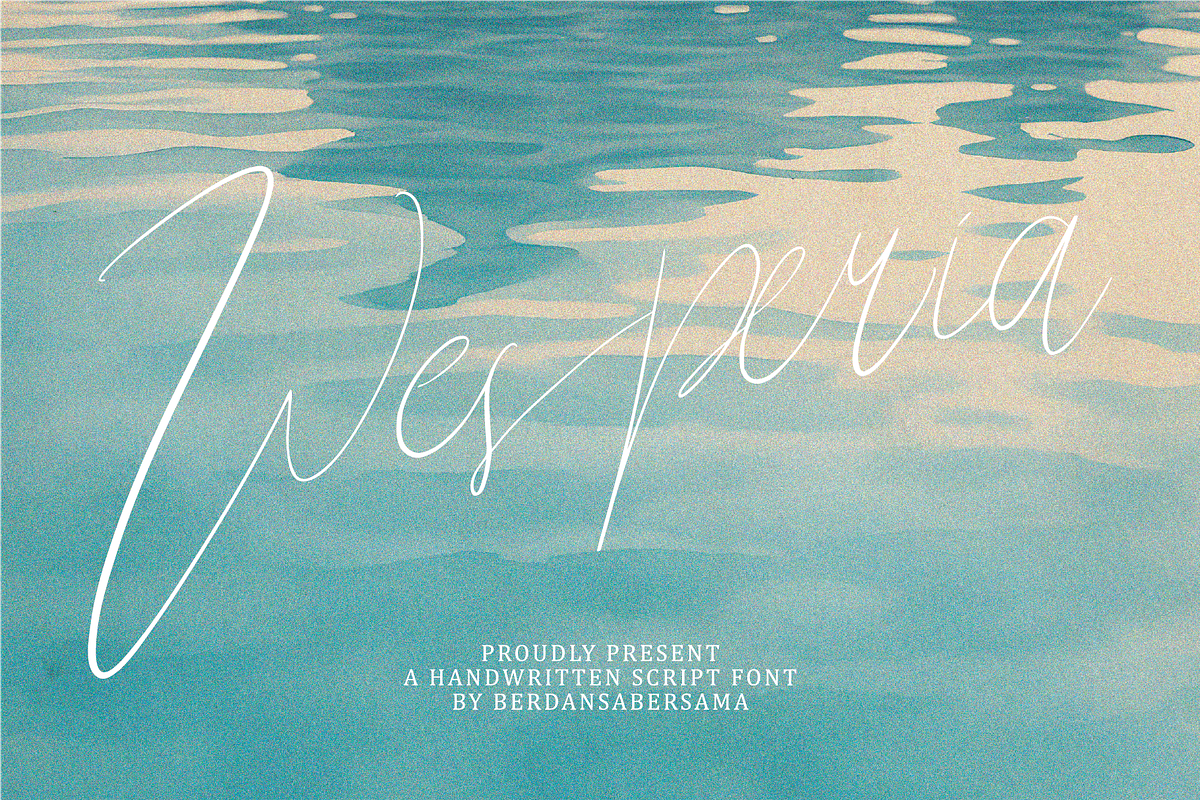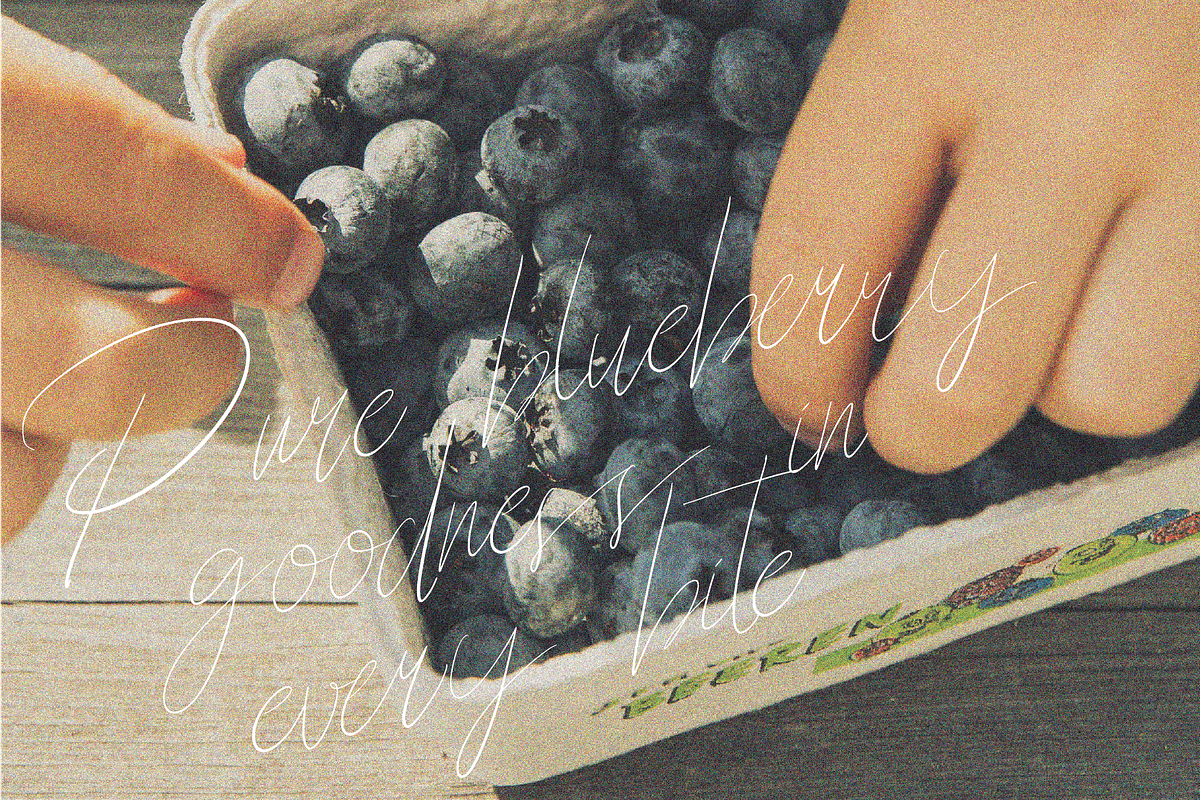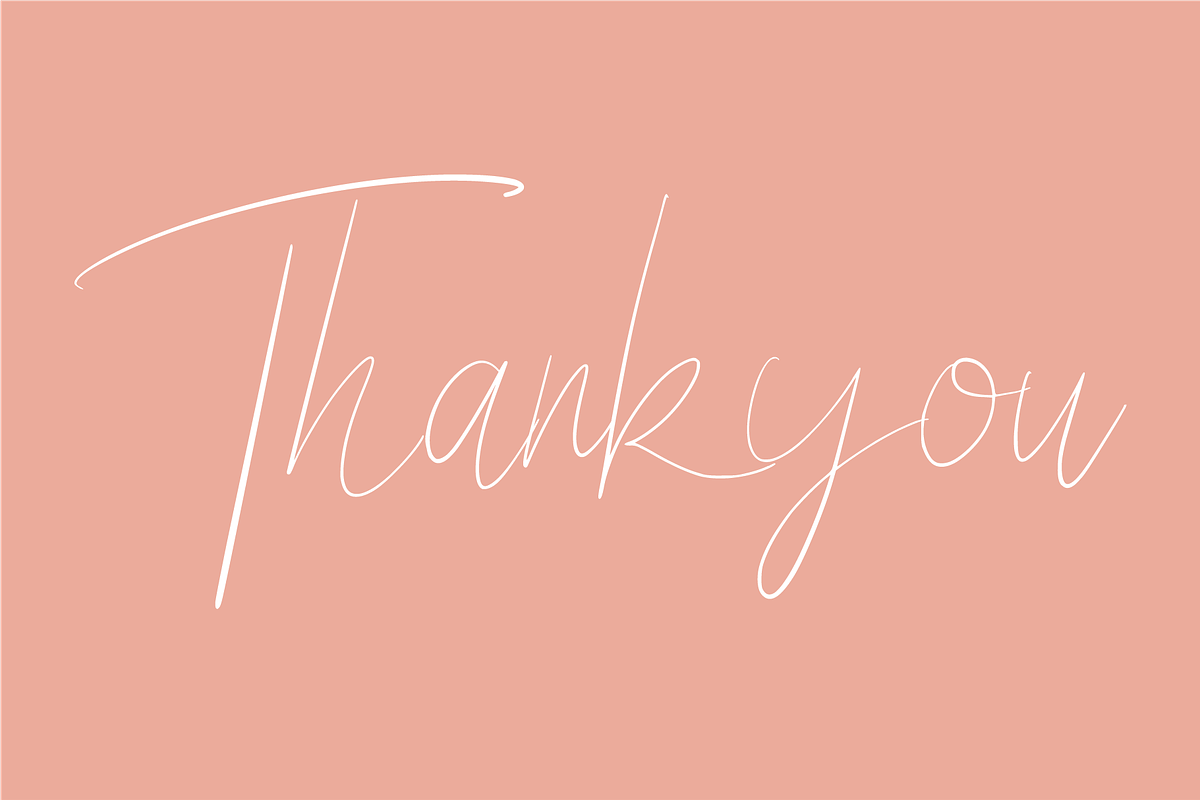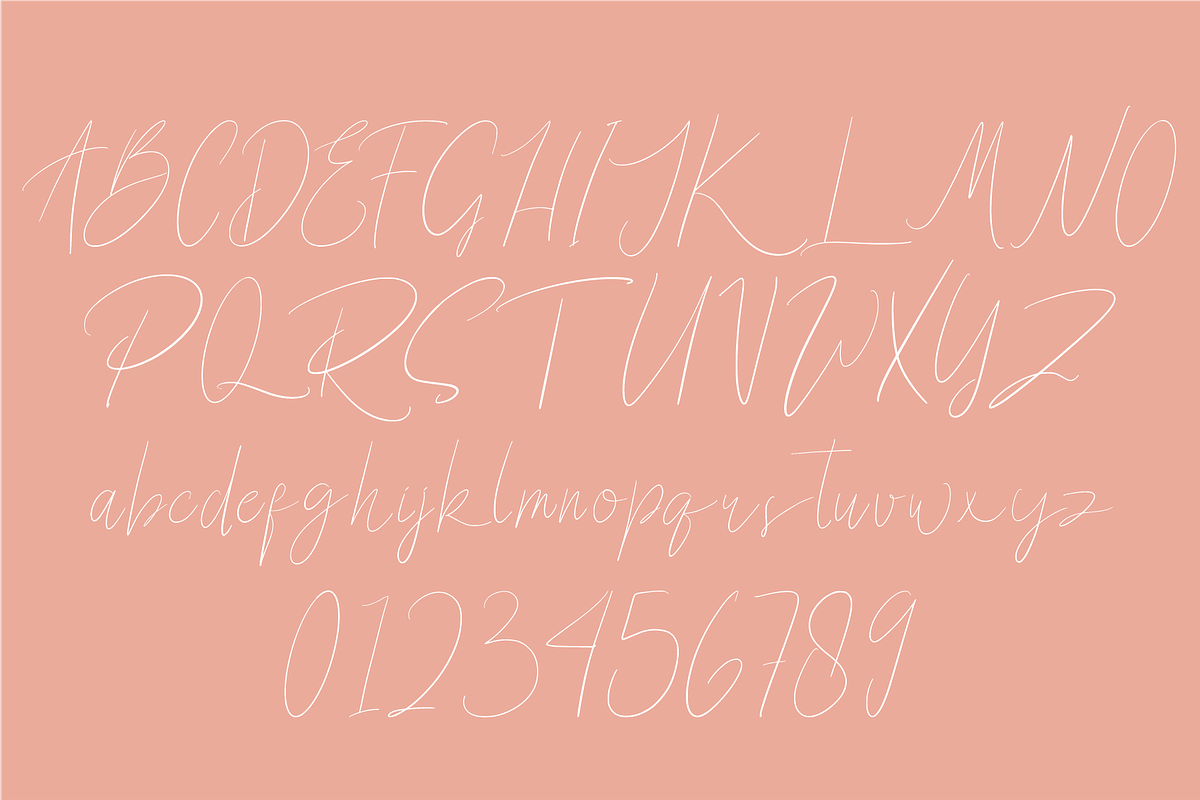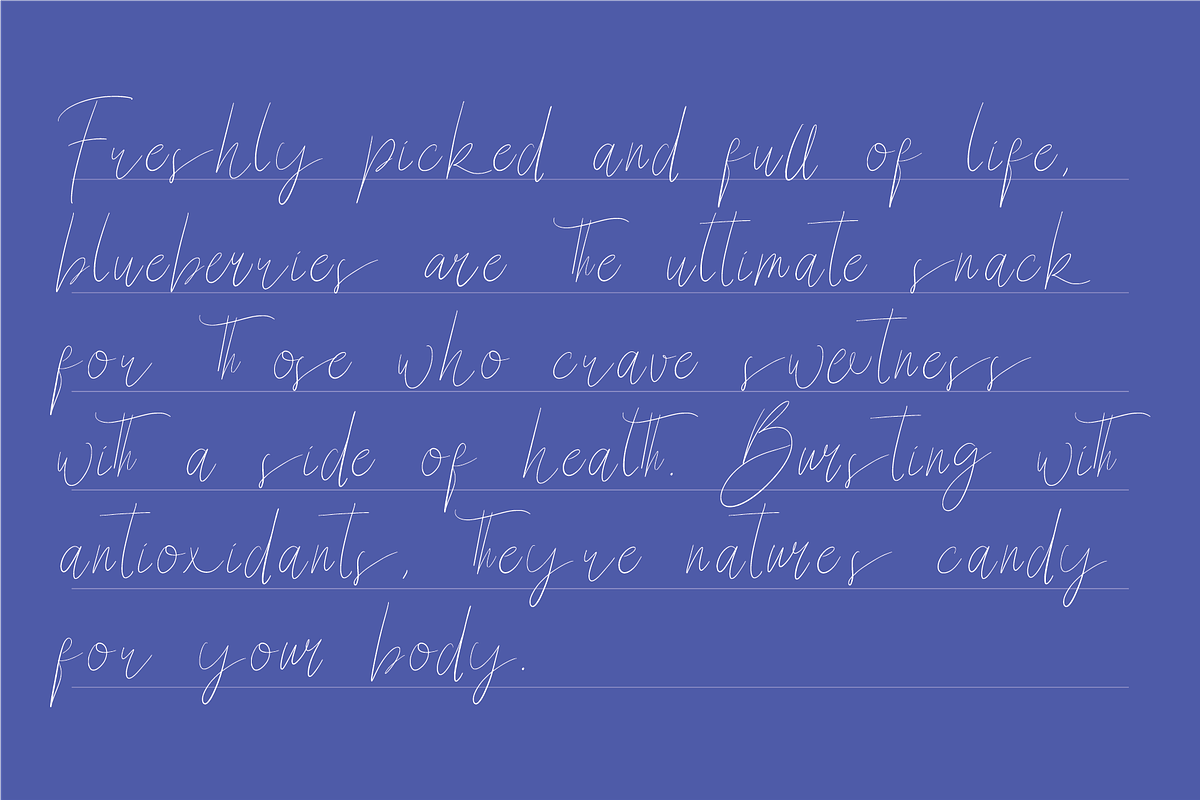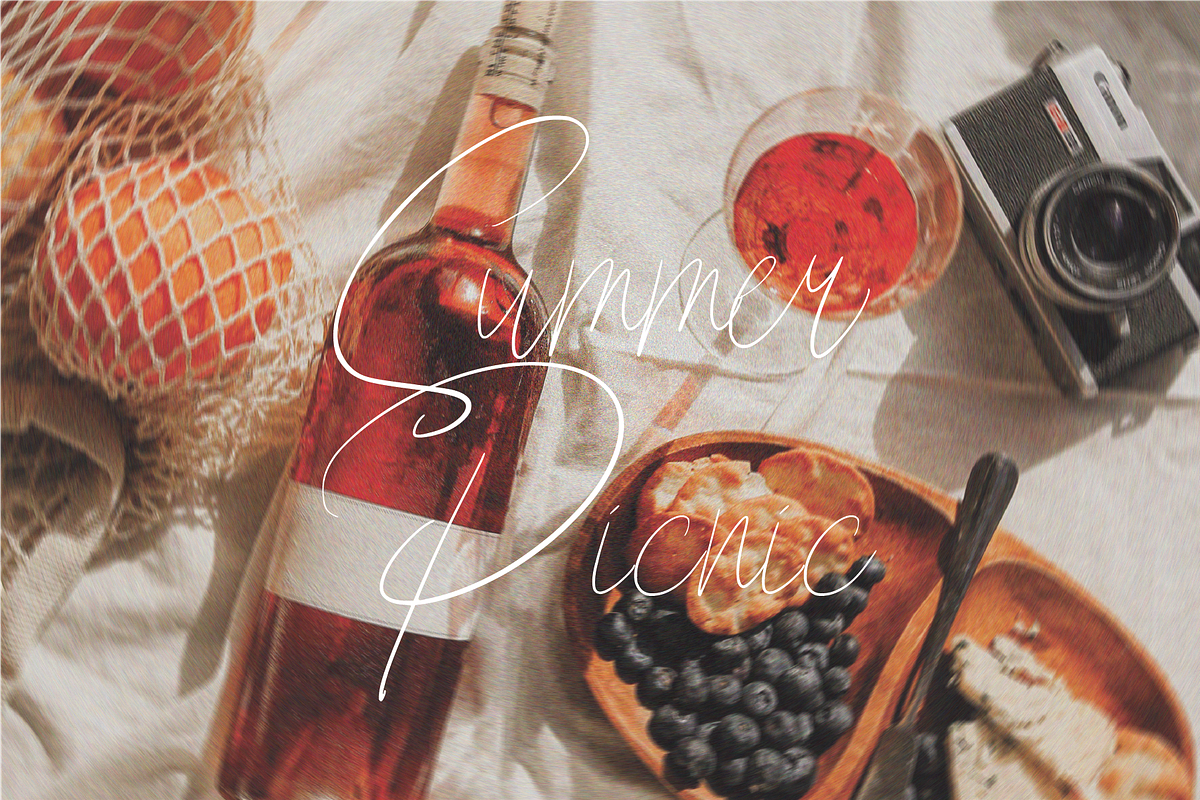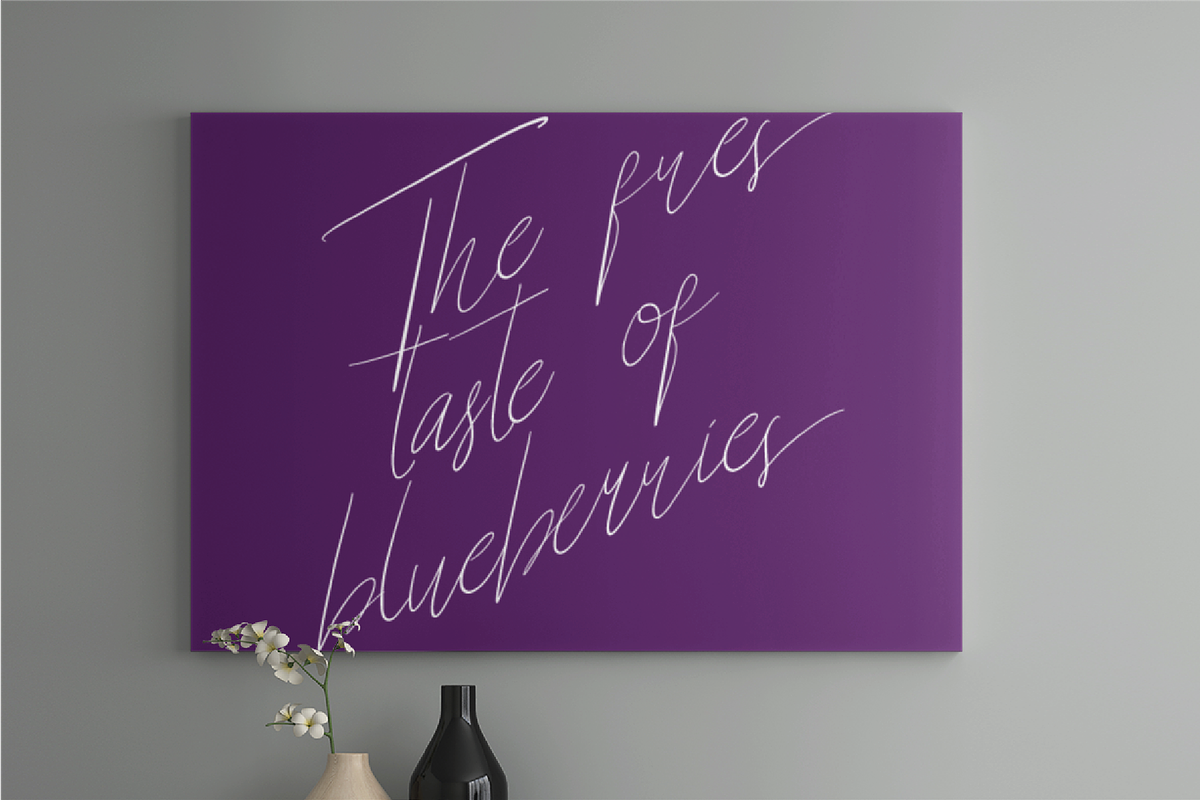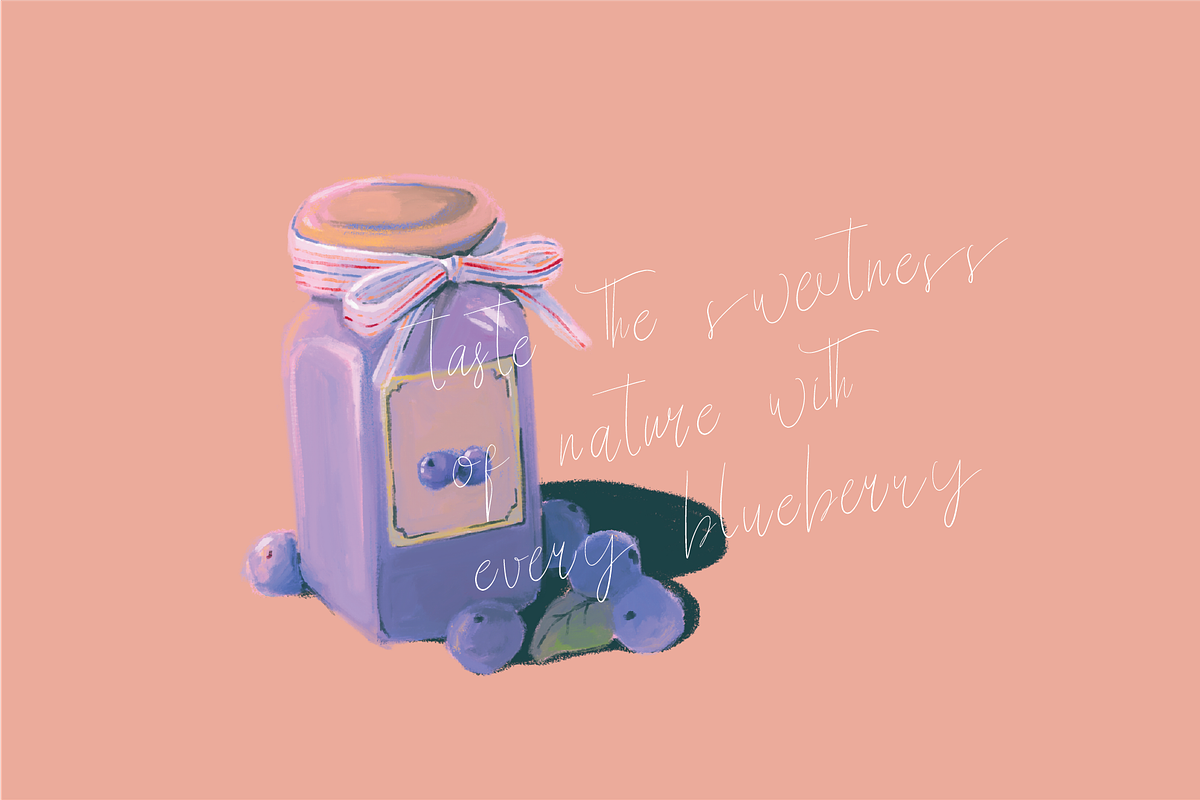
Wesperia Script
Wisperia is a graceful handwritten script font that embodies serenity and sophistication. With its delicate strokes and flowing, airy form, it evokes the calm of twilight reflections on water — soft, dreamy, and endlessly elegant.
- Numbers, marks and symbols